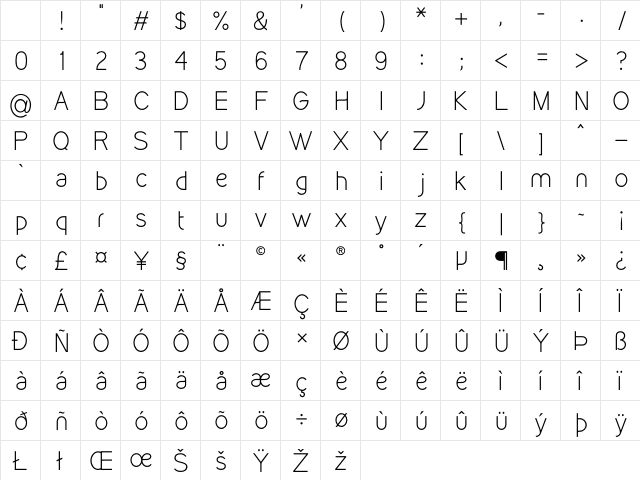
Kirvy is a composed and adaptable typeface that performs quietly and consistently across a wide range of design contexts. Its slender proportions lend an understated elegance to any composition.